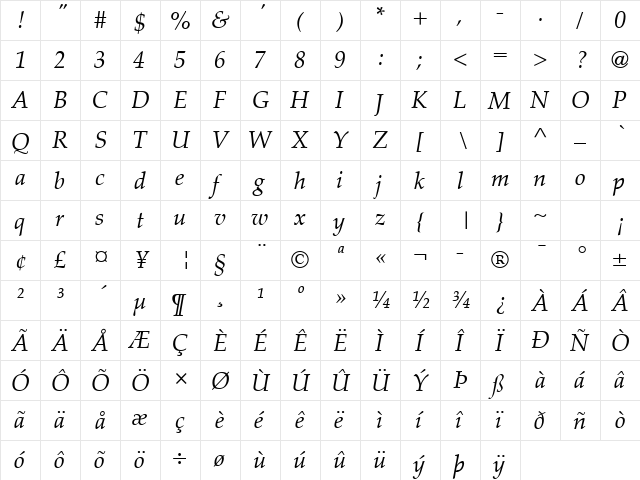
Palatino S Italic Font Preview
Palatino S Italic
Palatino S Italic Font Details
Design Context for Palatino S Typeface
Palatino S is a composed and adaptable typeface that performs quietly and consistently across a wide range of design contexts. The slanted form adds forward momentum and visual energy.